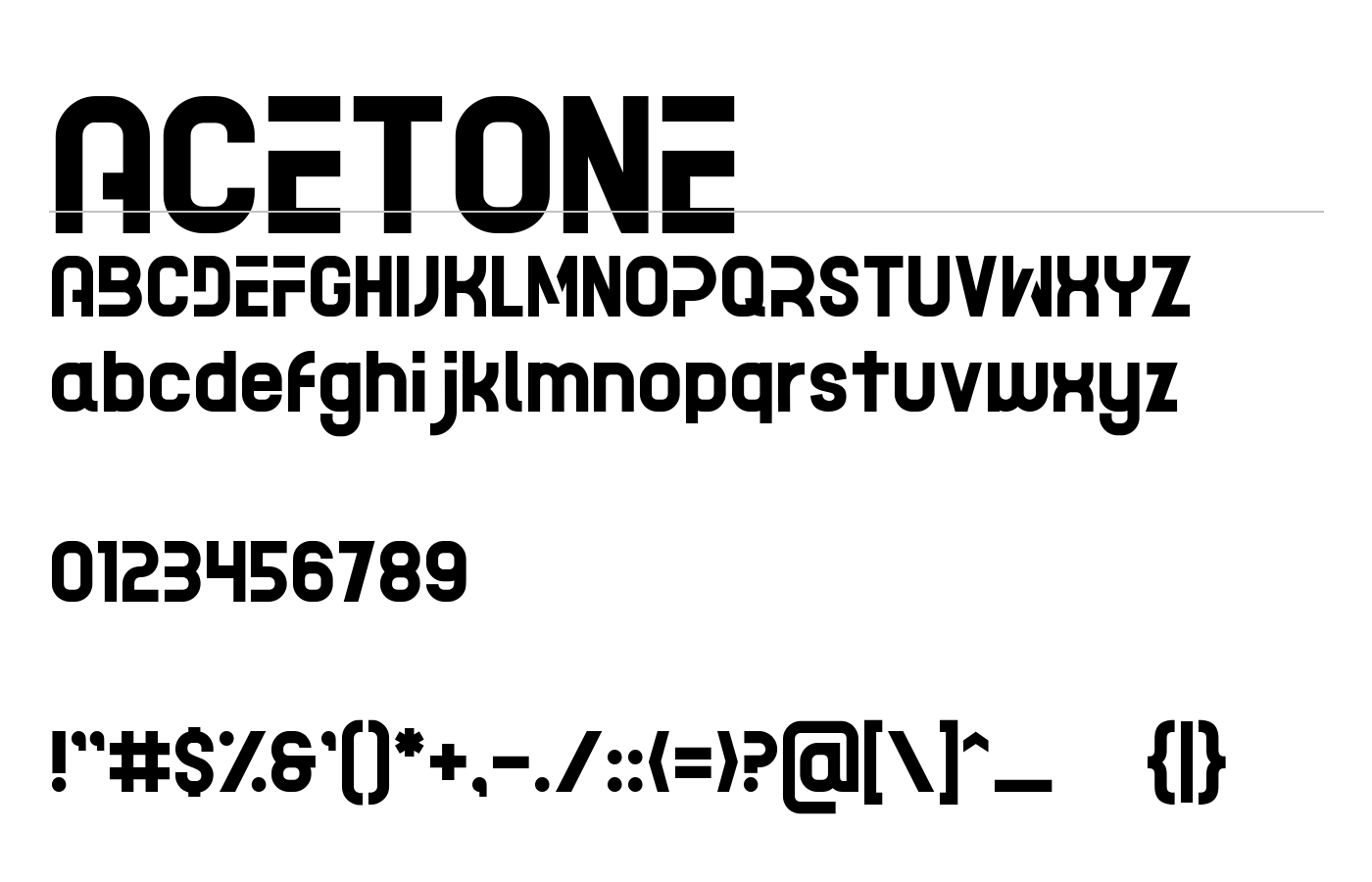
ACETONE is a bold, modern sans serif font characterized by its strong geometric shapes and distinctive horizontal cutouts that add a futuristic, tech-inspired feel. With its compact width, medium x-height, and clean lines, it offers a striking presence suited for headlines, logos, and branding that seek a contemporary, edgy style. This font works especially well in digital and media designs where a unique, confident personality is desired.
ACETONE Font